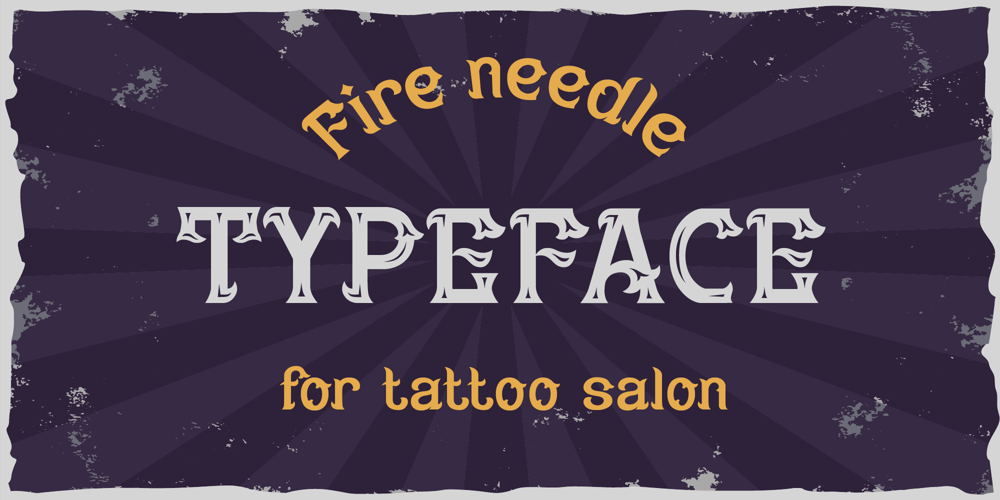
Fire Needle Font Family was designed by Evgeny Dneprovsky and published by Fractal Font Factory. Fire Needle contains 2 styles and family package options. Hello! Introducing the vintage Fire Needle font. This font is layered, has an additional font file with a decorative meaning.